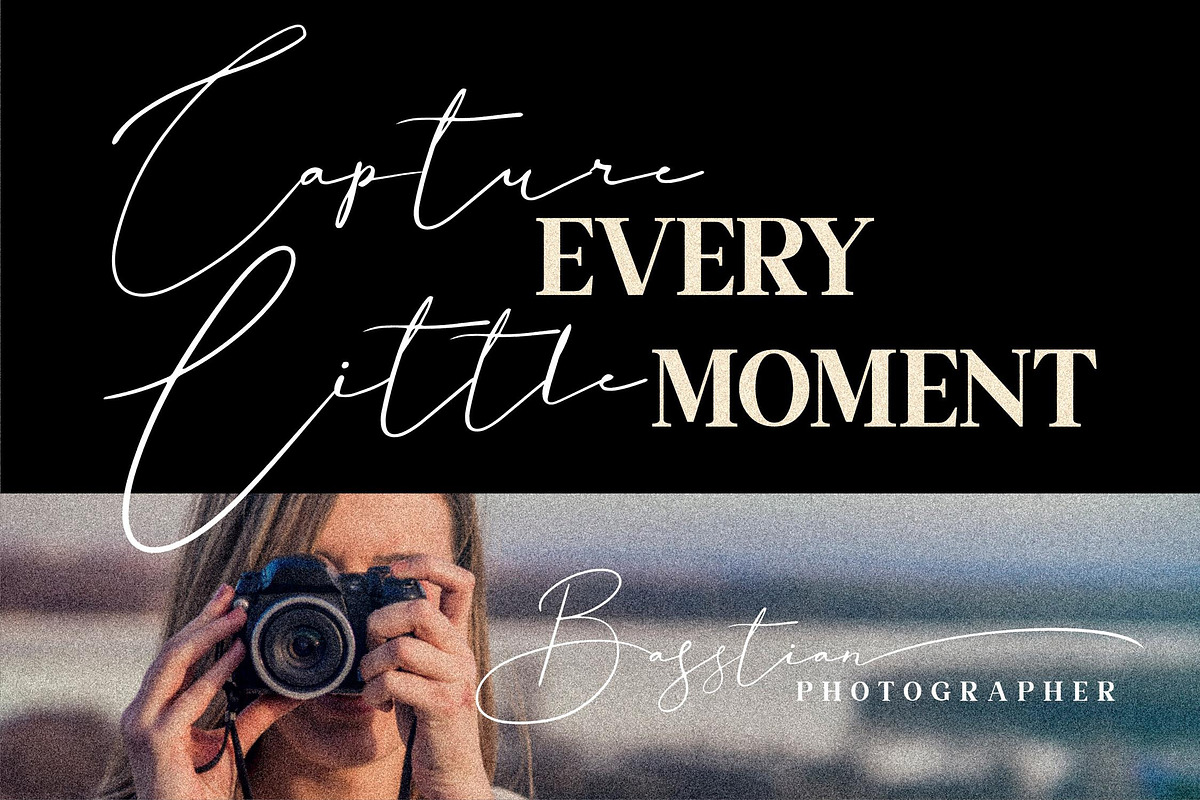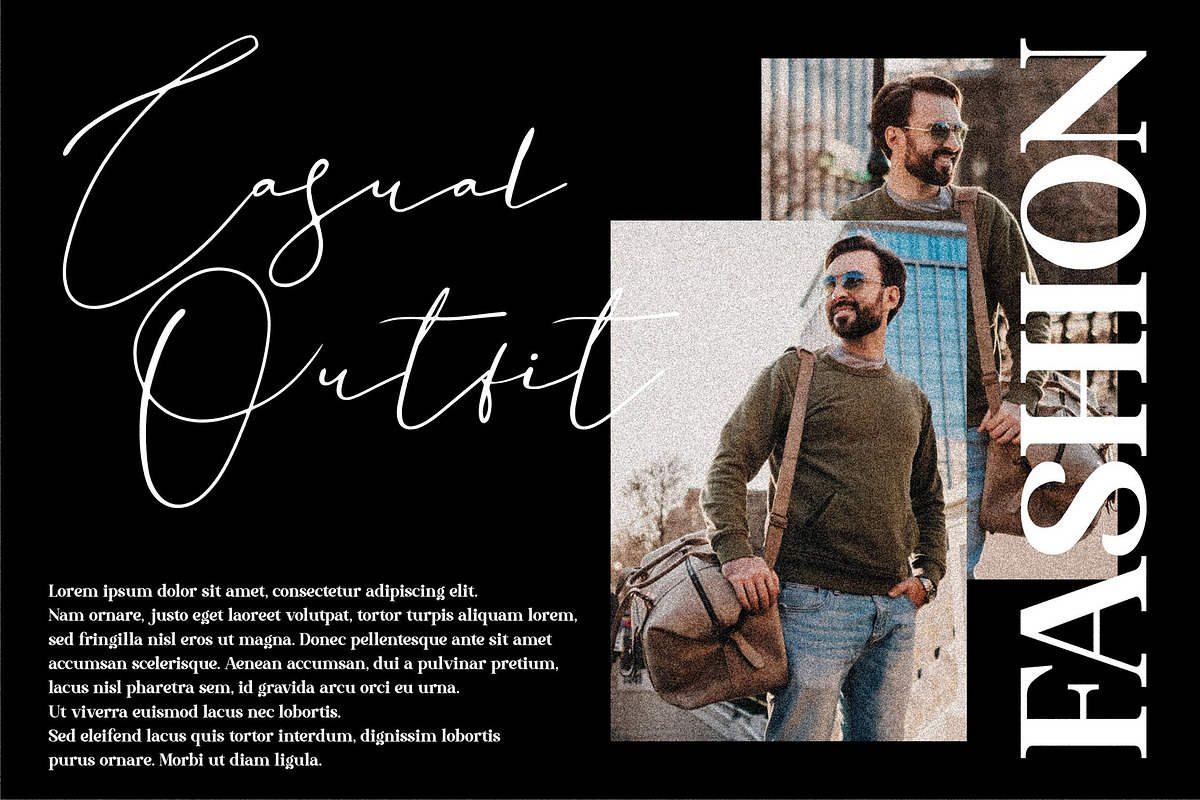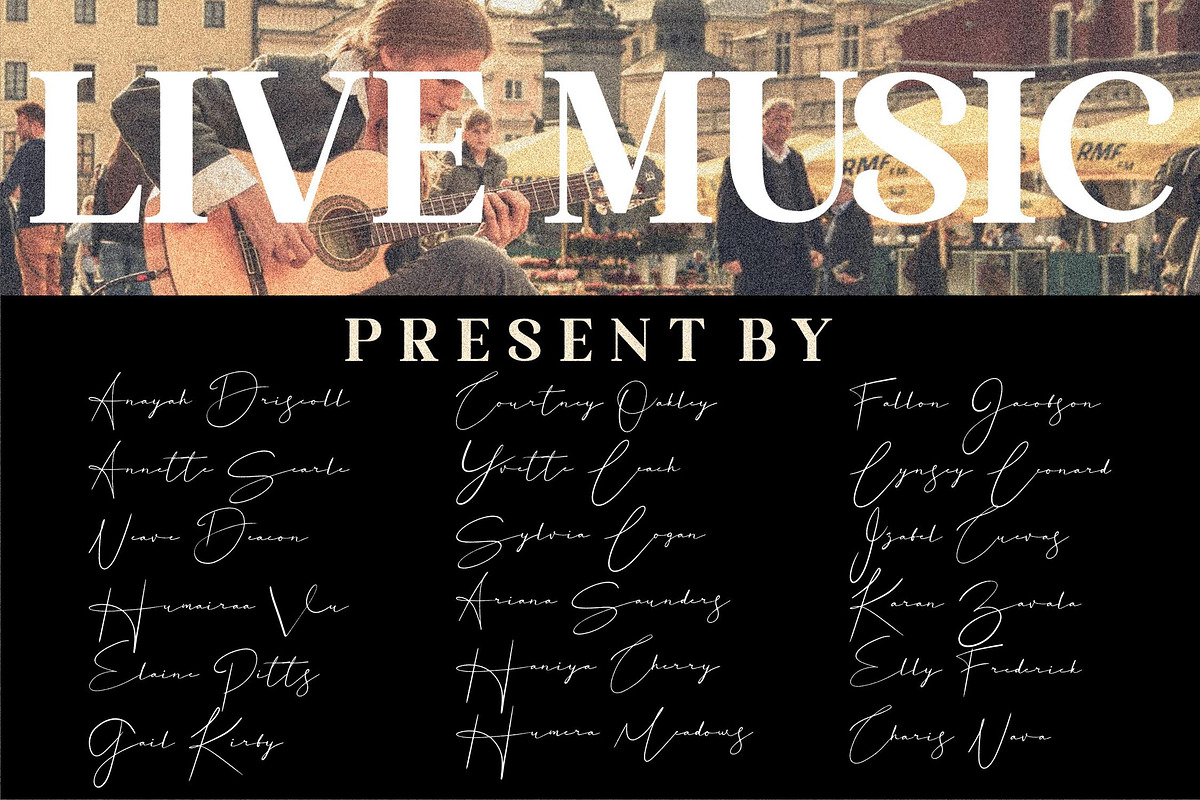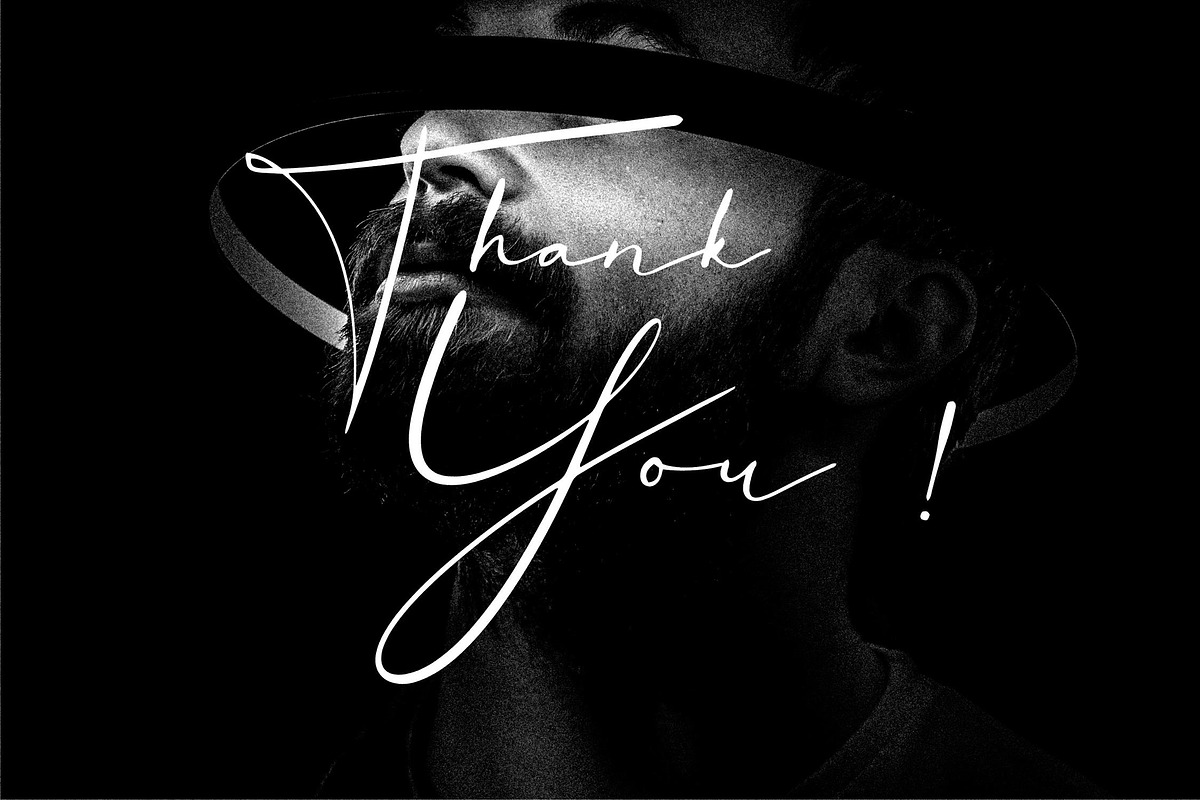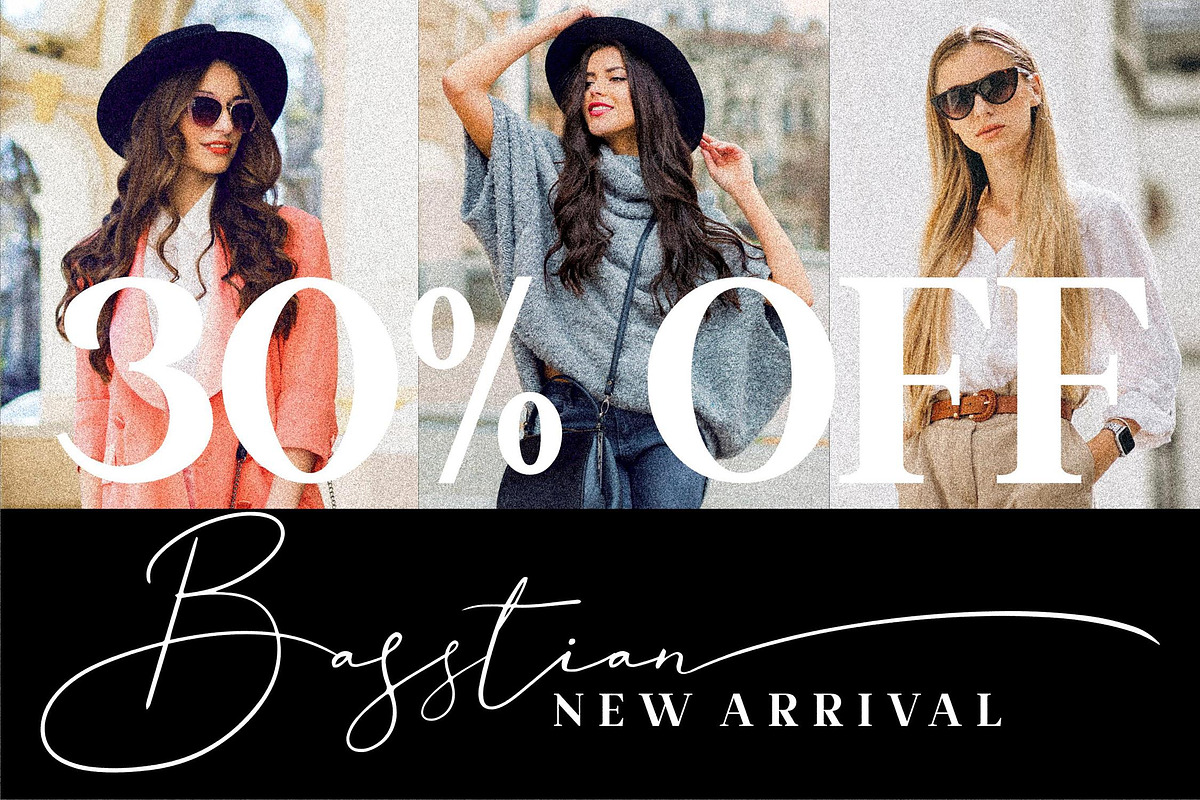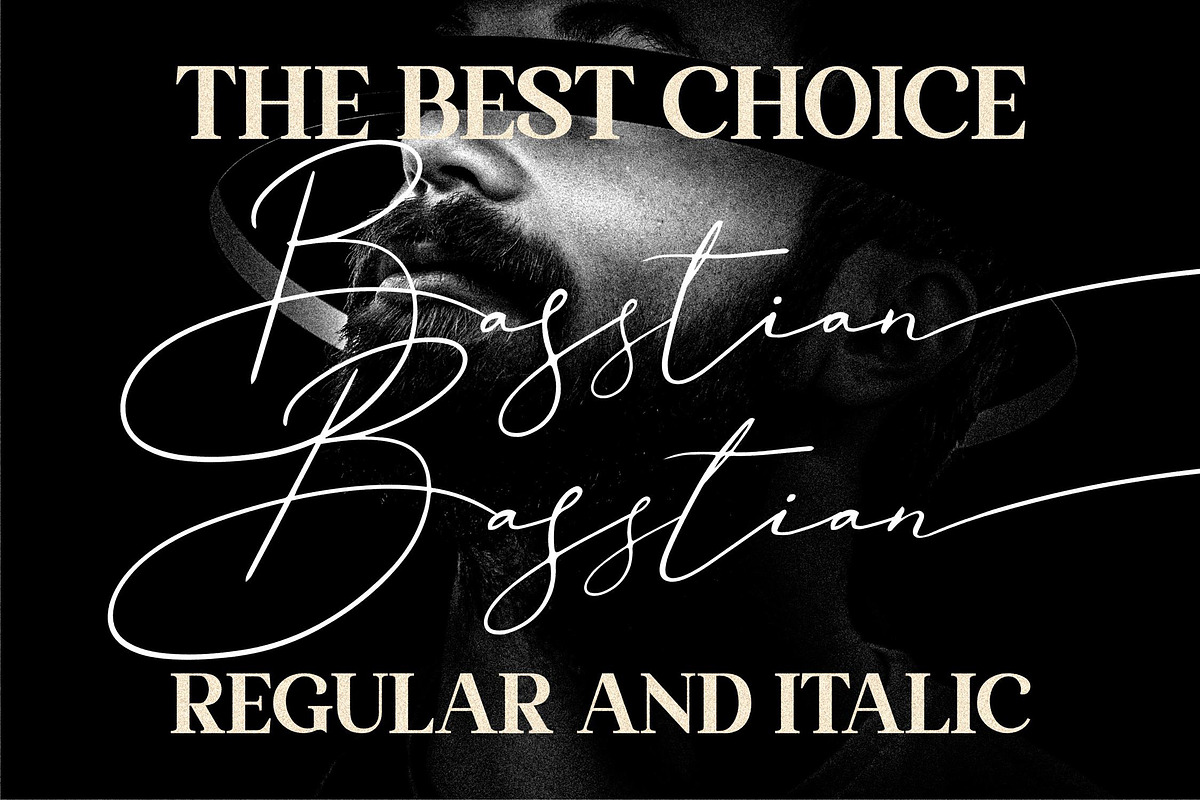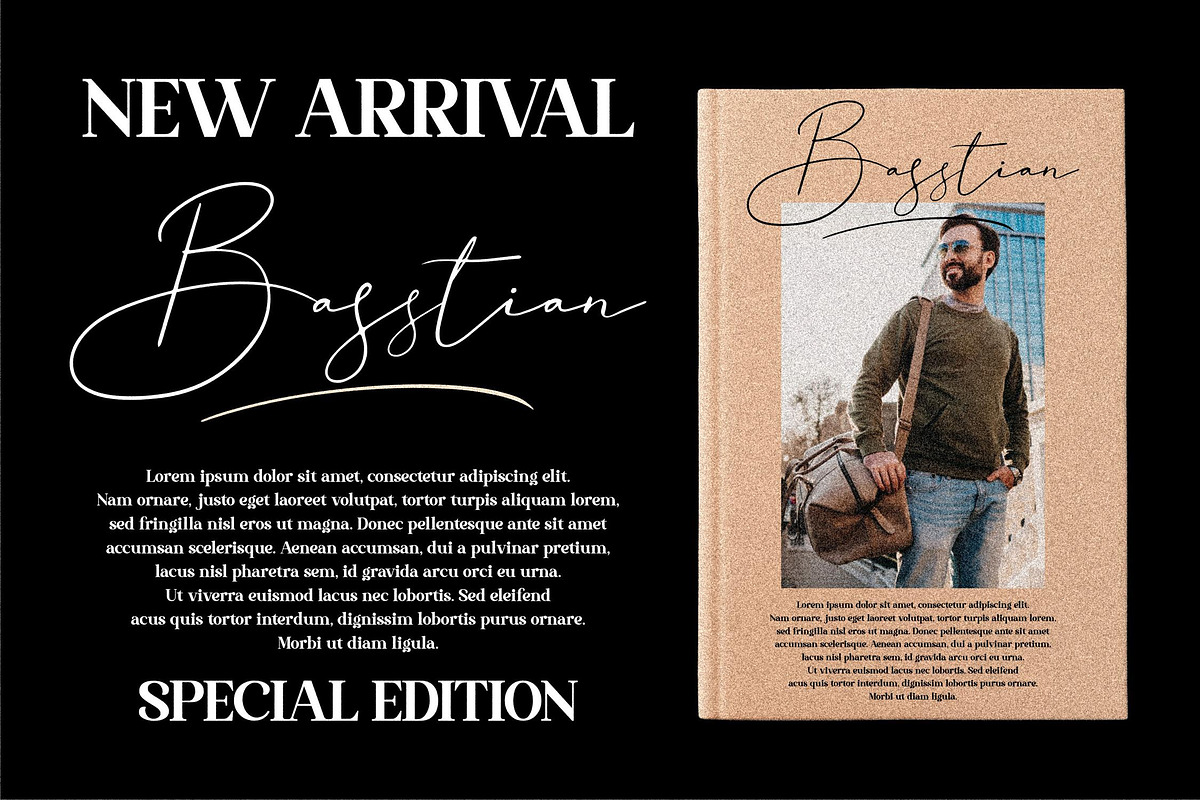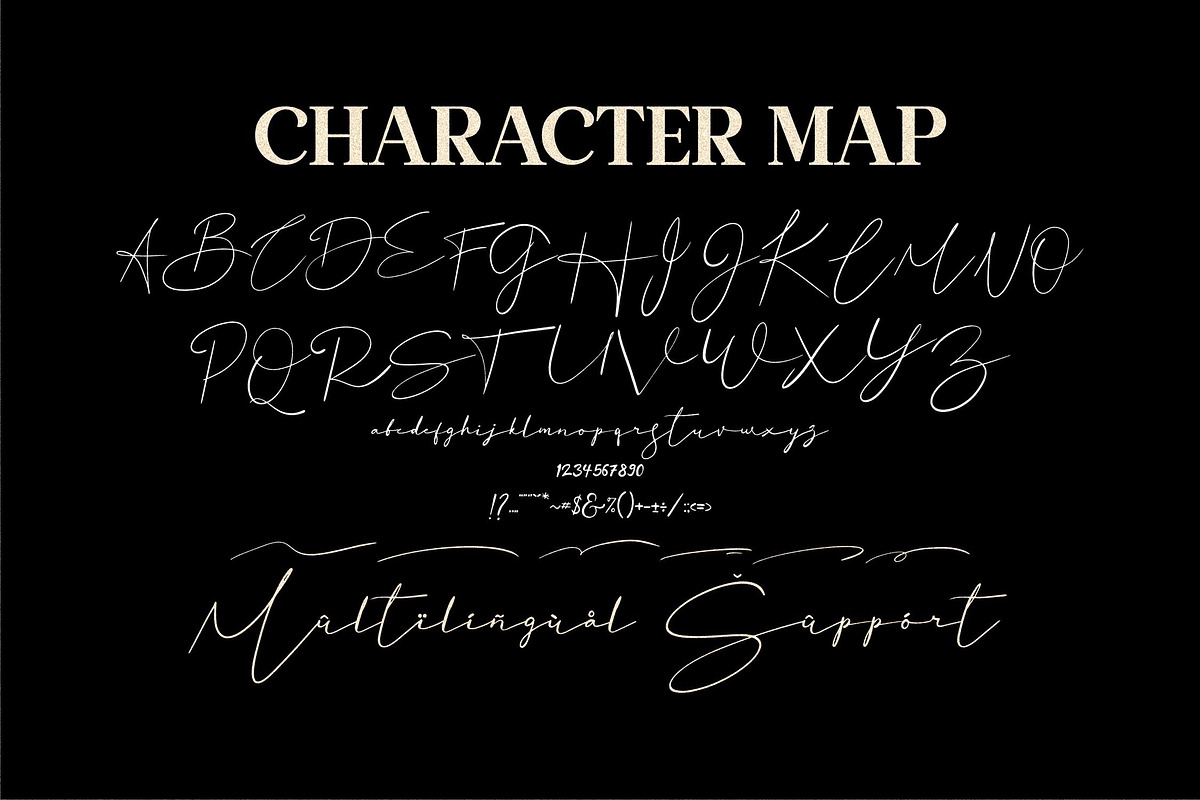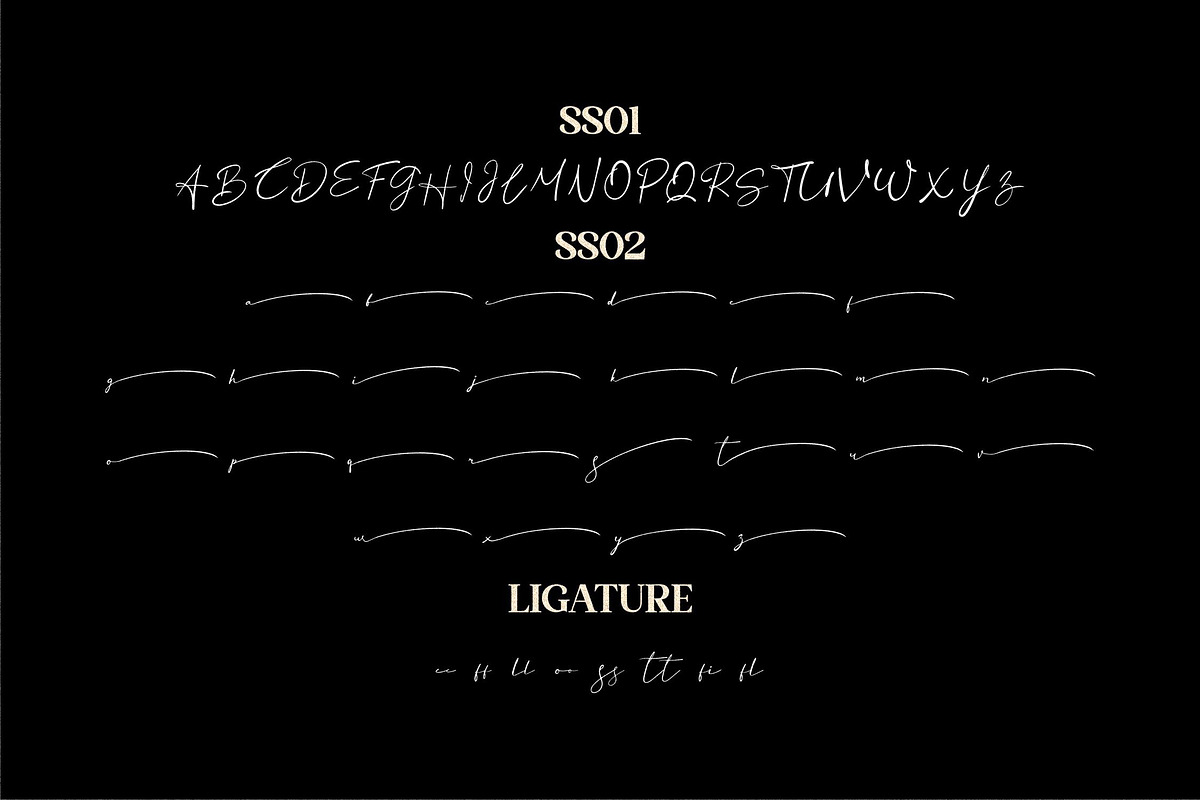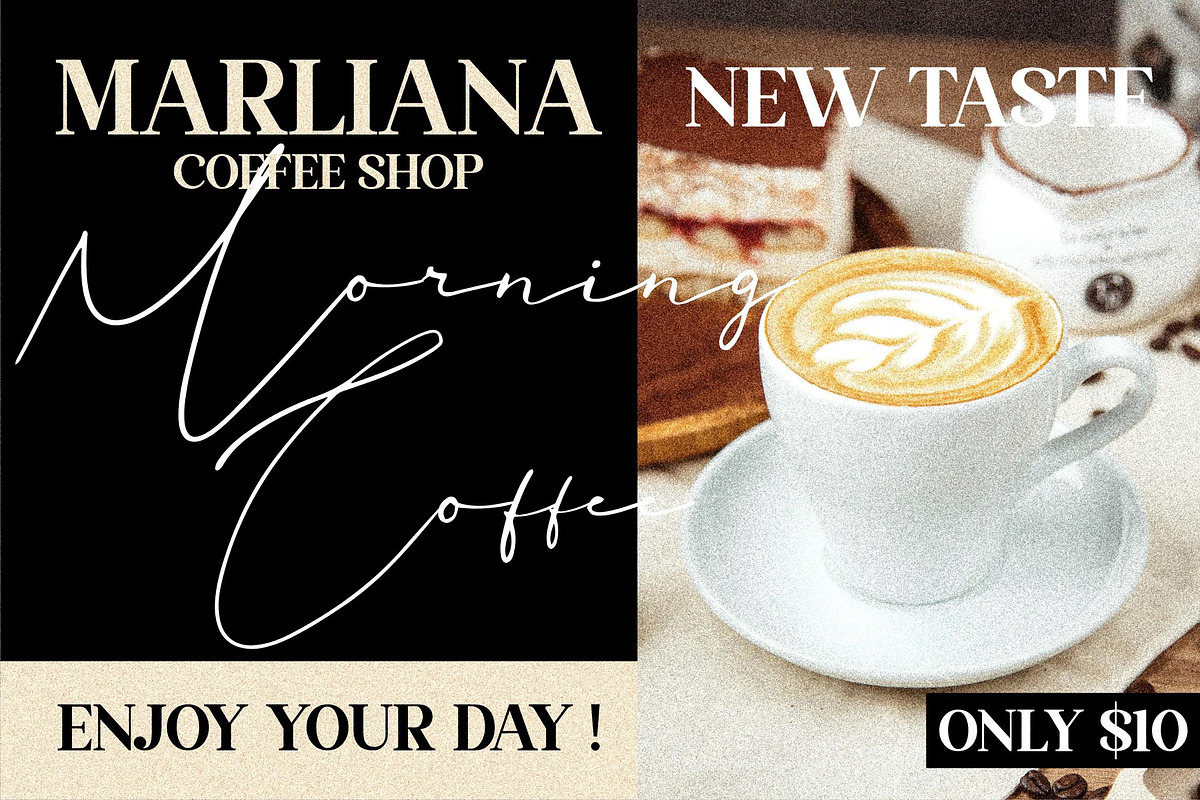
Basstian Signature LS
Hi ladies & gentlemen, this is one of our fonts suitable to complement your digital and printed creative products. This font is perfect for posters, social media posts, branding, personal projects, etc.